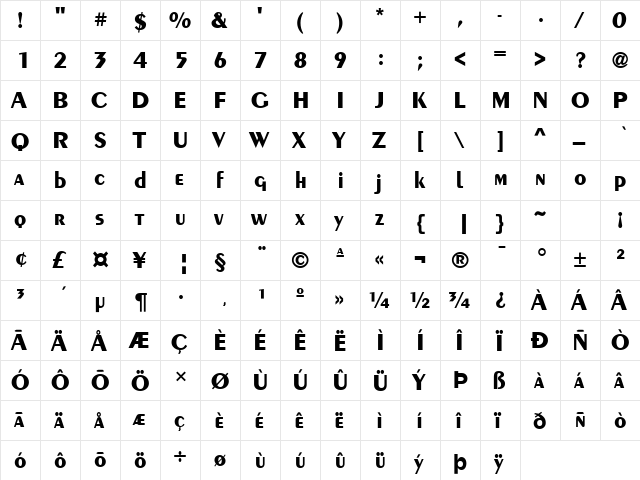
French Vogue BOLD
Design Context for French Vogue Typeface
French Vogue is a composed and adaptable typeface that performs quietly and consistently across a wide range of design contexts. The heavy weight commands attention and anchors typographic hierarchies.